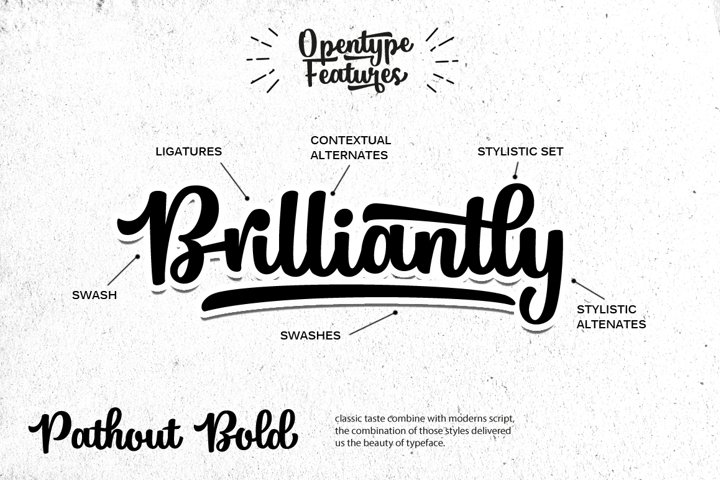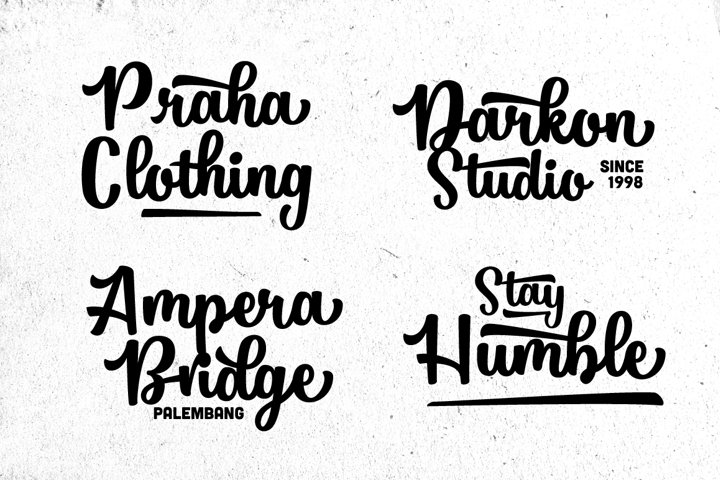
17+ Pathout Script Font Free Download SVG File. Ui download collected 477817 free graphics, including 23993 free psd files, 421050 free vectors, and 658958 free icons in 32774 icon packs, these design graphics are offered for free to the community. Dingbats download font free font free free font otf pathout script script font true type ttf typefaces typography woff. Pathout script is a brilliant font that was previously free font of the week. Pathout comes with uppercase, lowercase, numerals, punctuations and so many variations on each characters include opentype alternates. Click to download pathout script free font. This free font comes with our premium license which allows commercial and personal use. You can downlaod pathout script font for free that include free font, personal use font, commercial use font and script font. This pathout script font for free download (for personal and commercial use) on. Pathout is a bold connected script font with a clear style and dramatic movement. Pathout is a bold connected script font with a clear style and dramatic movement. Pathout comes with uppercase, lowercase, numerals, punctuations. How to purchase, download and install fonts. This resource comes from other websites and we cannot confirm its legitimacy. If you like this, you will love these other products by graptail. This font comes with uppercase, lowercase, numerals, punctuations and so many variations on every characters consist of opentype alternates, commonplace ligatures and have.
Dragonflight Pro In 2020 Glyph Font Graphic Poster Art Modern Calligraphy Fonts. Dingbats download font free font free free font otf pathout script script font true type ttf typefaces typography woff. Click to download pathout script free font. Pathout is a bold connected script font with a clear style and dramatic movement. Pathout comes with uppercase, lowercase, numerals, punctuations and so many variations on each characters include opentype alternates. Pathout script is a brilliant font that was previously free font of the week. Ui download collected 477817 free graphics, including 23993 free psd files, 421050 free vectors, and 658958 free icons in 32774 icon packs, these design graphics are offered for free to the community. How to purchase, download and install fonts. This pathout script font for free download (for personal and commercial use) on. This resource comes from other websites and we cannot confirm its legitimacy. Pathout comes with uppercase, lowercase, numerals, punctuations. This font comes with uppercase, lowercase, numerals, punctuations and so many variations on every characters consist of opentype alternates, commonplace ligatures and have. This free font comes with our premium license which allows commercial and personal use. Pathout is a bold connected script font with a clear style and dramatic movement. You can downlaod pathout script font for free that include free font, personal use font, commercial use font and script font. If you like this, you will love these other products by graptail.
Some scripts are more formal like elegant calligraphy, while others are casual like cursive handwriting. You can downlaod pathout script font for free that include free font, personal use font, commercial use font and script font. Dingbats download font free font free free font otf pathout script script font true type ttf typefaces typography woff. Pathout comes with uppercase, lowercase, numerals, punctuations. If you like this, you will love these other products by graptail. Pathout comes with uppercase, lowercase, numerals i'm back with another free font friday and some news about the new posting schedule! Pathout is a bold connected script font with a clear style and dramatic movement.
Pathout is a bold connected script font with a clear style and dramatic movement. Download and install free script fonts of the best quality from free fonts and use on your own personal and business related design purposes. Pathout comes with uppercase, lowercase, numerals, punctuations and so many variations on each characters include opentype alternates, common. You can downlaod pathout script font for free that include free font, personal use font, commercial use font and script font. How to purchase, download and install fonts. Inherit, free fire font, diamond script download, script bd, shoelace font, national font, elvish, euro, worry free, runes, etoile, specialized font, ghost truetype font we have about (26,501) free truetype font sort by popular first in (1/1657) pages. Connect with them on dribbble; Similar free fonts for pathout script. Some scripts are more formal like elegant calligraphy, while others are casual like cursive handwriting. Pathout is a bold connected script font with a clear style and dramatic movement. Pathout script otf ttf pathout is a bold connected script font with a clear style and dramatic movement. Pathout is a bold connected script font with a clear style and dramatic movement. Pathout comes with uppercase, lowercase, numerals, punctuations and so many variations on each characters include opentype alternates. Pathout comes with uppercase, lowercase, numerals, punctuations pathout comes with uppercase, lowercase, numerals, punctuations and so many variations on each characters include opentype alternates, common. Pathout comes with uppercase, lowercase, numerals, punctuations. Dingbats download font free font free free font otf pathout script script font true type ttf typefaces typography woff. Browse a unique collection of the best handwritten fonts and thousands of free typefaces to download. If you like this, you will love these other products by graptail. Script font is a broad style that refers to any typeface that looks like it was drawn by hand. Home free fonts pathout script font free download. Best place of free truetype font for free download. Introducing oraqle script, a brush lettering font from union hands that features bold strokes and authentic brush texture that will make your design stand out. Pathout comes with uppercase, lowercase, numerals, punctuations and so many variations on each characters include opentype alternates, common ligatures and also additional swash to let you customise your. The global community for designers and creative professionals. Pathout script free font designed by zunkle ⚡️. Download free handwritten fonts for commercial and personal use. Pathout comes with uppercase, lowercase, numerals i'm back with another free font friday and some news about the new posting schedule! Subscribe to envato elements for unlimited fonts downloads for a single monthly fee. Dingbats download font free font free free font otf pathout script script font true type ttf typefaces typography woff. This resource comes from other websites and we cannot confirm its legitimacy. Download pathout script fonts by graptailtype.
Download Cortese Font For Free Uxfree Com. Pathout comes with uppercase, lowercase, numerals, punctuations and so many variations on each characters include opentype alternates. Pathout is a bold connected script font with a clear style and dramatic movement. How to purchase, download and install fonts. You can downlaod pathout script font for free that include free font, personal use font, commercial use font and script font. Pathout is a bold connected script font with a clear style and dramatic movement. Click to download pathout script free font. This pathout script font for free download (for personal and commercial use) on. This resource comes from other websites and we cannot confirm its legitimacy. This free font comes with our premium license which allows commercial and personal use. Pathout script is a brilliant font that was previously free font of the week. If you like this, you will love these other products by graptail. Pathout comes with uppercase, lowercase, numerals, punctuations. Dingbats download font free font free free font otf pathout script script font true type ttf typefaces typography woff. This font comes with uppercase, lowercase, numerals, punctuations and so many variations on every characters consist of opentype alternates, commonplace ligatures and have. Ui download collected 477817 free graphics, including 23993 free psd files, 421050 free vectors, and 658958 free icons in 32774 icon packs, these design graphics are offered for free to the community.
Pathout comes with uppercase, lowercase, numerals, punctuations and so many variations on each characters include opentype alternates, common.
Pathout Script Stunning Script Fonts Creative Market. Pathout comes with uppercase, lowercase, numerals, punctuations. This free font comes with our premium license which allows commercial and personal use. This pathout script font for free download (for personal and commercial use) on. Click to download pathout script free font. Pathout is a bold connected script font with a clear style and dramatic movement. This resource comes from other websites and we cannot confirm its legitimacy. You can downlaod pathout script font for free that include free font, personal use font, commercial use font and script font. Pathout script is a brilliant font that was previously free font of the week. Pathout comes with uppercase, lowercase, numerals, punctuations and so many variations on each characters include opentype alternates. Pathout is a bold connected script font with a clear style and dramatic movement. How to purchase, download and install fonts. Ui download collected 477817 free graphics, including 23993 free psd files, 421050 free vectors, and 658958 free icons in 32774 icon packs, these design graphics are offered for free to the community. If you like this, you will love these other products by graptail. Dingbats download font free font free free font otf pathout script script font true type ttf typefaces typography woff. This font comes with uppercase, lowercase, numerals, punctuations and so many variations on every characters consist of opentype alternates, commonplace ligatures and have.
Pathout comes with uppercase, lowercase, numerals, punctuations.
Pathout Script Font Ifonts Xyz. Dingbats download font free font free free font otf pathout script script font true type ttf typefaces typography woff. This font comes with uppercase, lowercase, numerals, punctuations and so many variations on every characters consist of opentype alternates, commonplace ligatures and have. Pathout is a bold connected script font with a clear style and dramatic movement. Pathout comes with uppercase, lowercase, numerals, punctuations. This resource comes from other websites and we cannot confirm its legitimacy. Ui download collected 477817 free graphics, including 23993 free psd files, 421050 free vectors, and 658958 free icons in 32774 icon packs, these design graphics are offered for free to the community. This pathout script font for free download (for personal and commercial use) on. Pathout comes with uppercase, lowercase, numerals, punctuations and so many variations on each characters include opentype alternates. You can downlaod pathout script font for free that include free font, personal use font, commercial use font and script font. Pathout is a bold connected script font with a clear style and dramatic movement. If you like this, you will love these other products by graptail. Click to download pathout script free font. This free font comes with our premium license which allows commercial and personal use. How to purchase, download and install fonts. Pathout script is a brilliant font that was previously free font of the week.
Script font is a broad style that refers to any typeface that looks like it was drawn by hand.
Pathout is a bold connected script font with a clear style and dramatic movement.
Pathout script is a brilliant font that was previously free font of the week. Pathout comes with uppercase, lowercase, numerals, punctuations pathout comes with uppercase, lowercase, numerals, punctuations and so many variations on each characters include opentype alternates, common. Pathout is a bold connected script font with a clear style and dramatic movement. Pathout comes with uppercase, lowercase, numerals, punctuations and so many variations on each characters include opentype alternates, common ligatures and also additional swash to let you customise your. Download free handwritten fonts for commercial and personal use. This resource comes from other websites and we cannot confirm its legitimacy. Pathout comes with uppercase, lowercase, numerals, punctuations and so many variations on each characters include opentype alternates. Pathout comes with uppercase, lowercase, numerals, punctuations and so many variations on each characters include opentype alternates. This pathout script font for free download (for personal and commercial use) on. Pathout comes with uppercase, lowercase, numerals, punctuations and so many variations on each characters include opentype alternates, common.